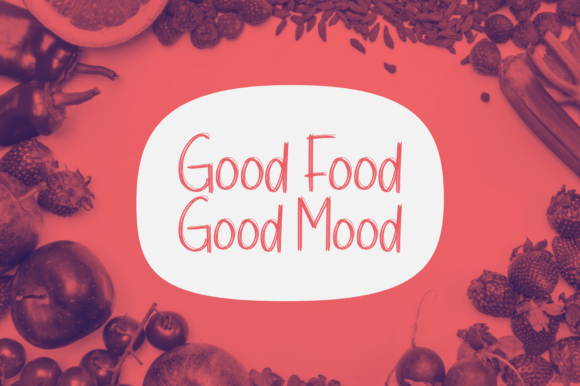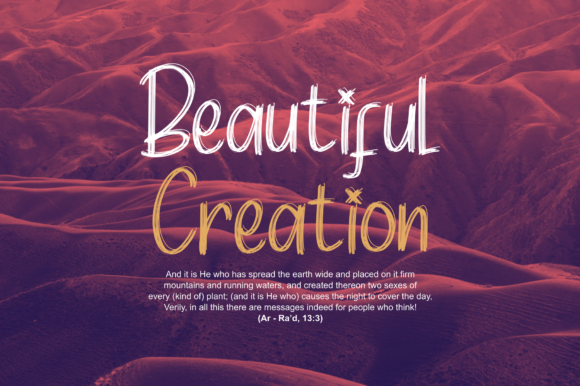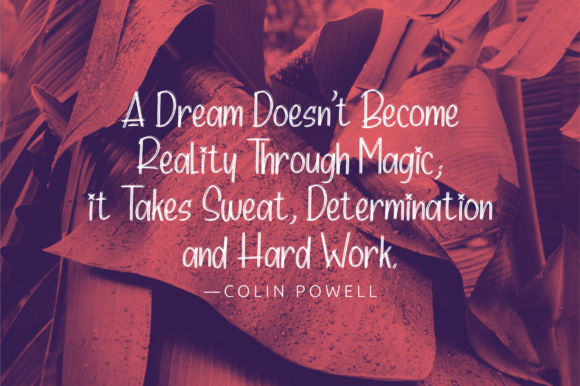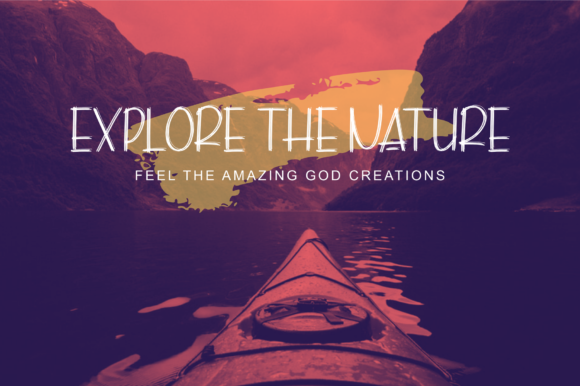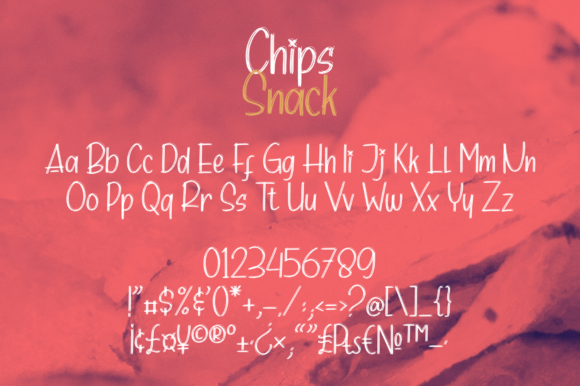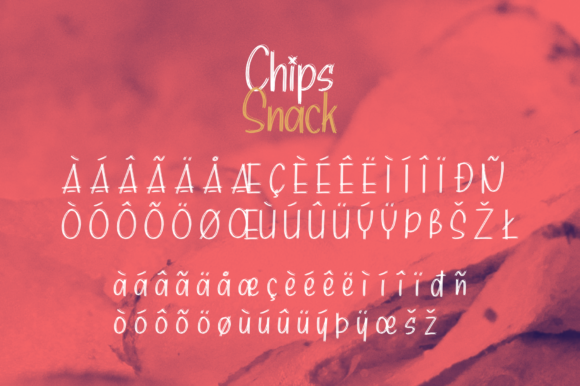
Introducing Chips Snack Font: The Perfect Blend of Style and Energy
In the world of design, fonts play a crucial role in conveying messages, expressing emotions, and creating visual identities. For designers and crafters, finding the right font can be a daunting task, especially when it comes to creating engaging and stylish content. This is where Chips Snack Font comes in – a strong and playfully contemporary script font that radiates energy and confidence.
What Makes Chips Snack Font Stand Out?
Chips Snack Font is a versatile script font that is designed to deliver any message with confidence, authenticity, and style. Its unique blend of modernity and playfulness makes it perfect for a wide range of design projects, from titles and headlines to logos, posters, and more. Whether you’re a designer, crafter, or simply a DIY enthusiast, Chips Snack Font is an excellent addition to your font library.
Key Features of Chips Snack Font
- Contemporary and Playful Design: Chips Snack Font boasts a modern and playful design that is sure to grab attention. Its energetic and lively feel makes it perfect for designs that require a youthful and vibrant touch.
- Highly Versatile: This script font is incredibly versatile and can be used for a wide range of design projects, including titles, headlines, logos, posters, and more.
- Confident and Authentic: Chips Snack Font exudes confidence and authenticity, making it perfect for designs that require a strong and bold statement.
- Easy to Read: Despite its playful design, Chips Snack Font is easy to read, making it perfect for designs that require a clear and concise message.
Use Cases for Chips Snack Font
Chips Snack Font is perfect for a wide range of design projects, including:
- Branding and Logo Design: Create a strong and memorable brand identity with Chips Snack Font. Its unique design makes it perfect for logos, business cards, and other branding materials.
- Posters and Flyers: Add a touch of energy and playfulness to your posters and flyers with Chips Snack Font. Its bold design makes it perfect for grabbing attention and conveying messages.
- Social Media Graphics: Create engaging social media graphics with Chips Snack Font. Its modern design makes it perfect for Instagram, Facebook, Twitter, and other social media platforms.
- Packaging Design: Add a touch of personality to your packaging design with Chips Snack Font. Its playful design makes it perfect for product labels, packaging, and more.
Tips for Using Chips Snack Font
Here are some tips for using Chips Snack Font effectively:
- Pair it with Neutral Fonts: Pair Chips Snack Font with neutral fonts to create a balanced design. This will help to ensure that your message is clear and concise.
- Use it for Headlines: Use Chips Snack Font for headlines and titles to grab attention and create a strong visual impact.
- Experiment with Colors: Experiment with different colors to find the perfect combination that works with Chips Snack Font. Its playful design makes it perfect for bright and bold colors.
Chips Snack Font is a strong and playfully contemporary script font that radiates energy and confidence. Its unique blend of modernity and playfulness makes it perfect for a wide range of design projects, from titles and headlines to logos, posters, and more. With its highly versatile design, Chips Snack Font is an excellent addition to any designer’s or crafter’s font library.